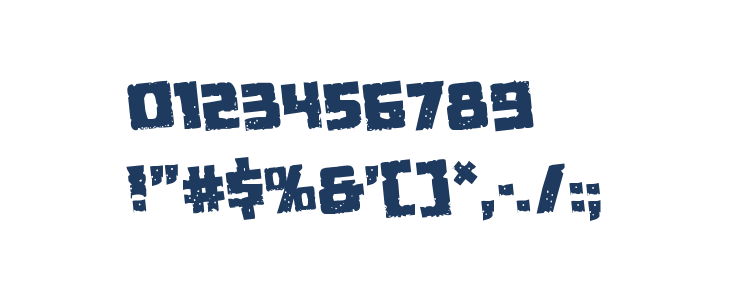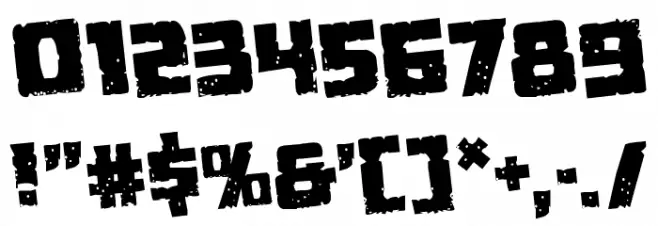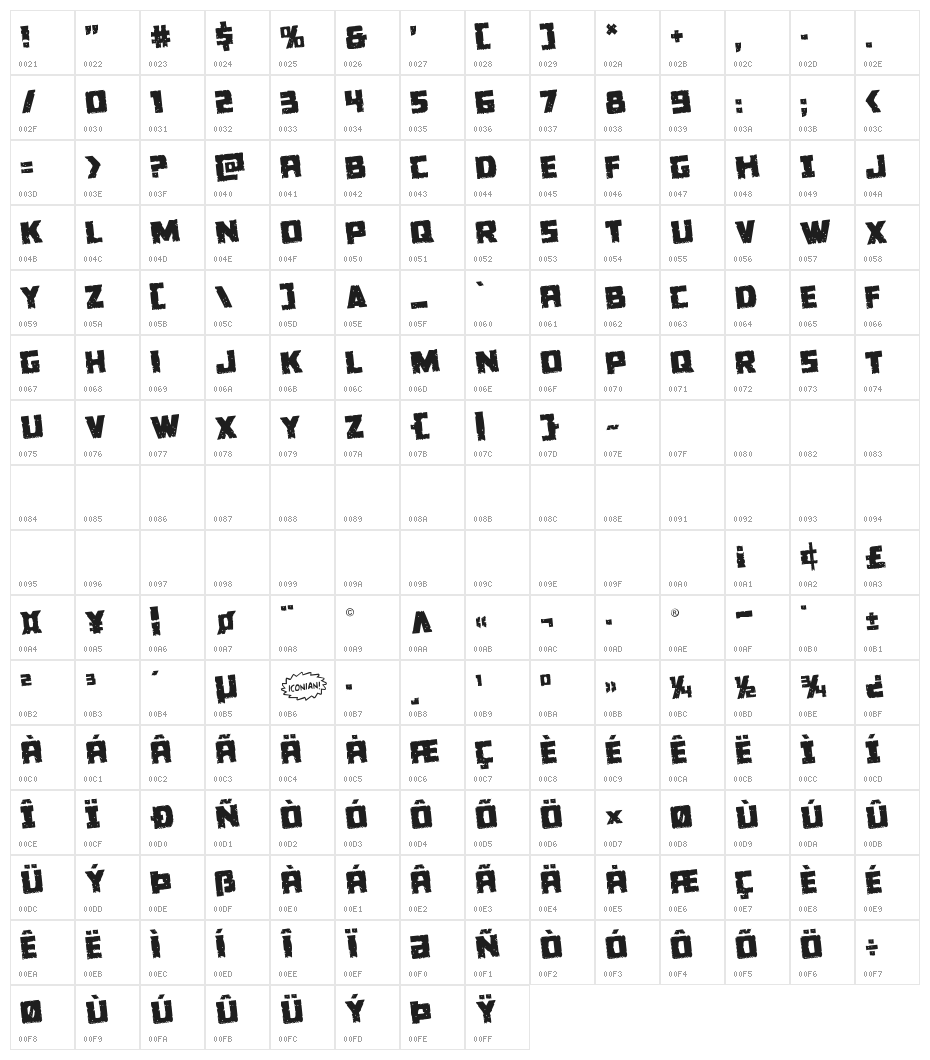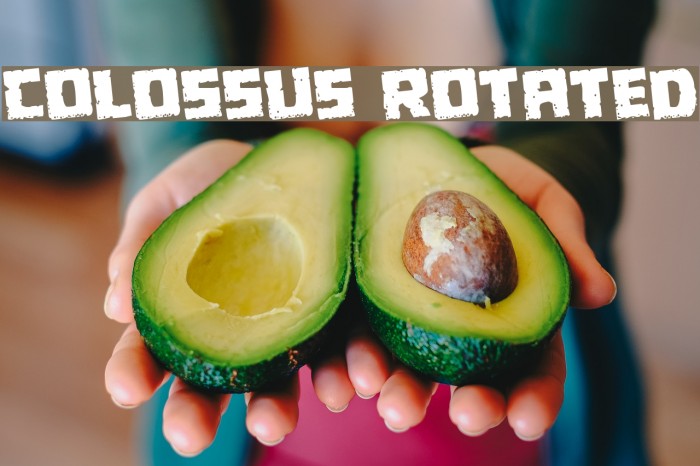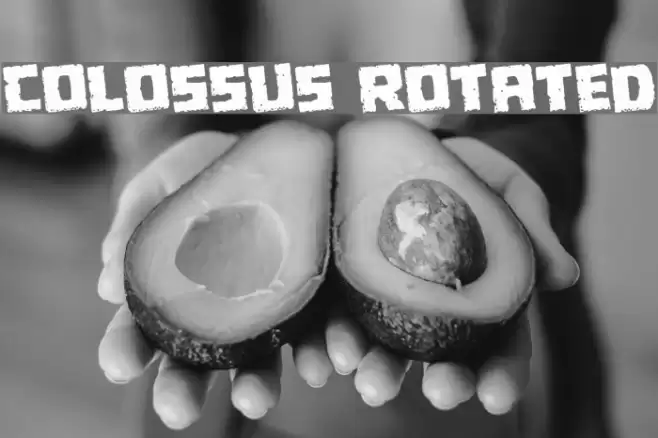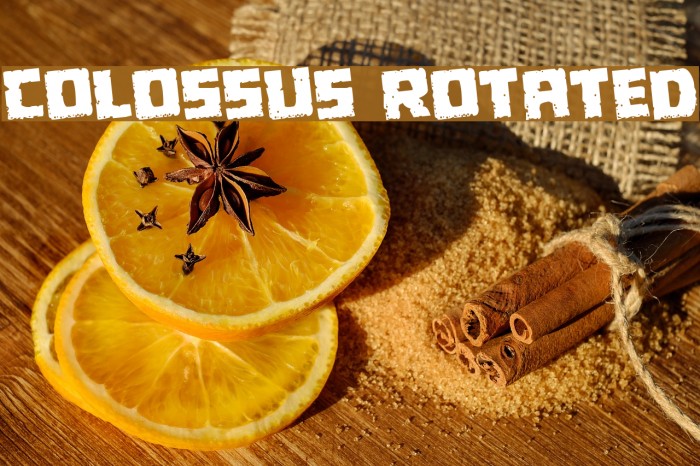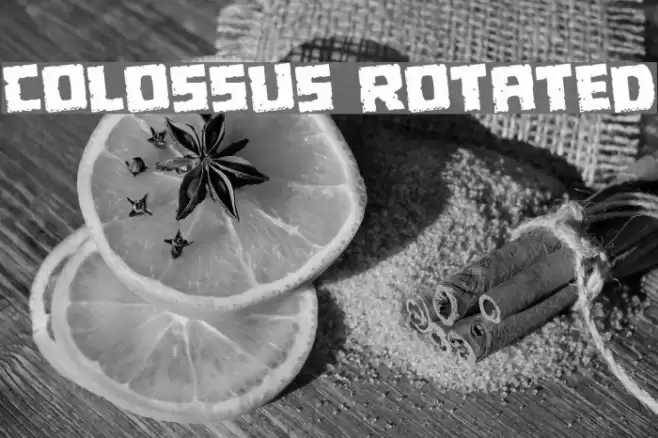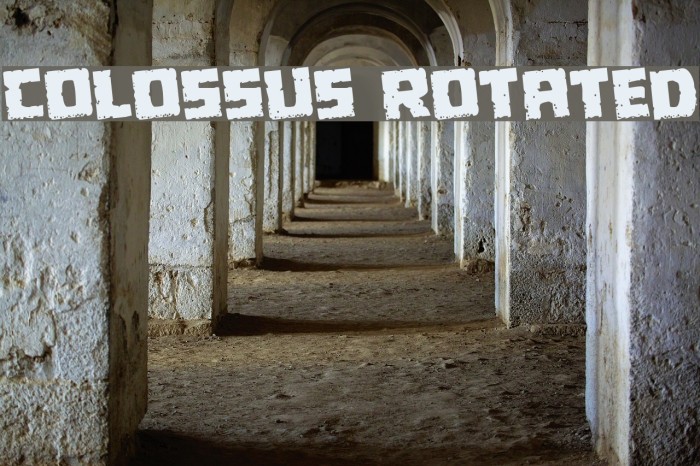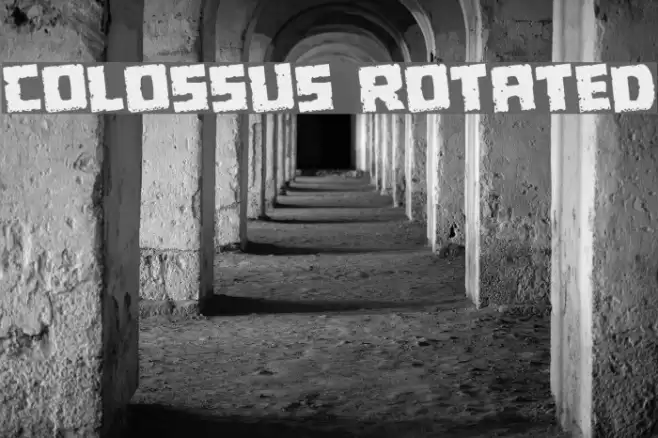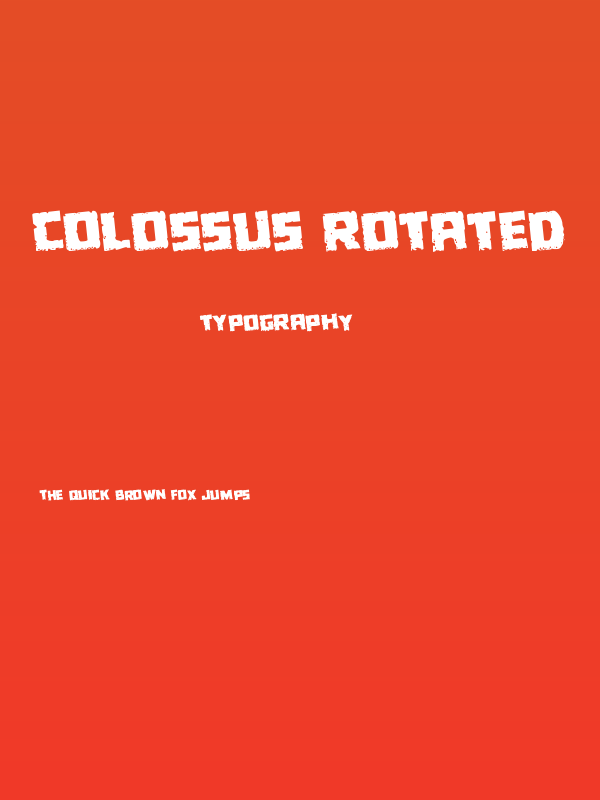
Colossus Rotated Font
Colossus Rotated Description
This font features a bold and rugged design, characterized by its distressed and textured appearance. The letters have a blocky, robust structure with uneven edges, giving it a gritty and industrial feel. The uppercase and lowercase letters maintain a consistent style, with the numbers and special characters following suit. The font's unique texture adds a dynamic and energetic quality, making it stand out in any design. Its boldness ensures high visibility, while the distressed texture adds a layer of depth and interest.
| Overall Style | Industrial, Rugged, Bold |
| Proposed Projects | Ideal for posters, album covers, branding for edgy or industrial-themed products, and any design needing a bold, impactful statement. |